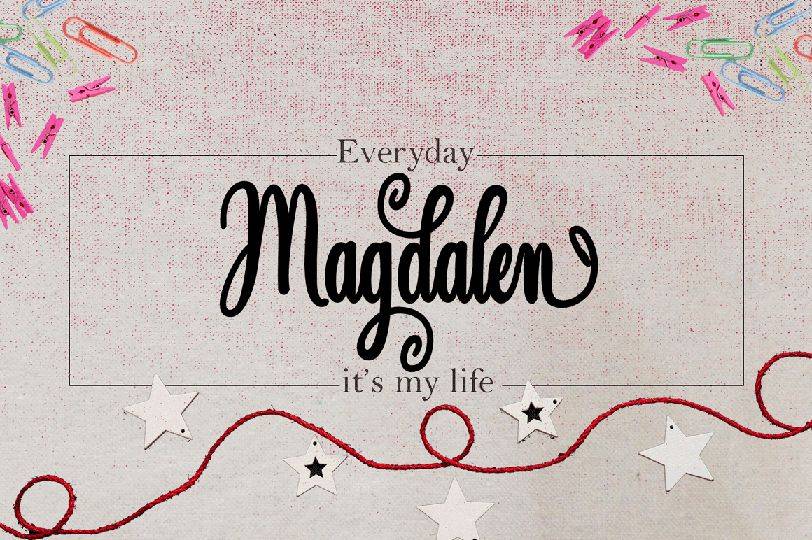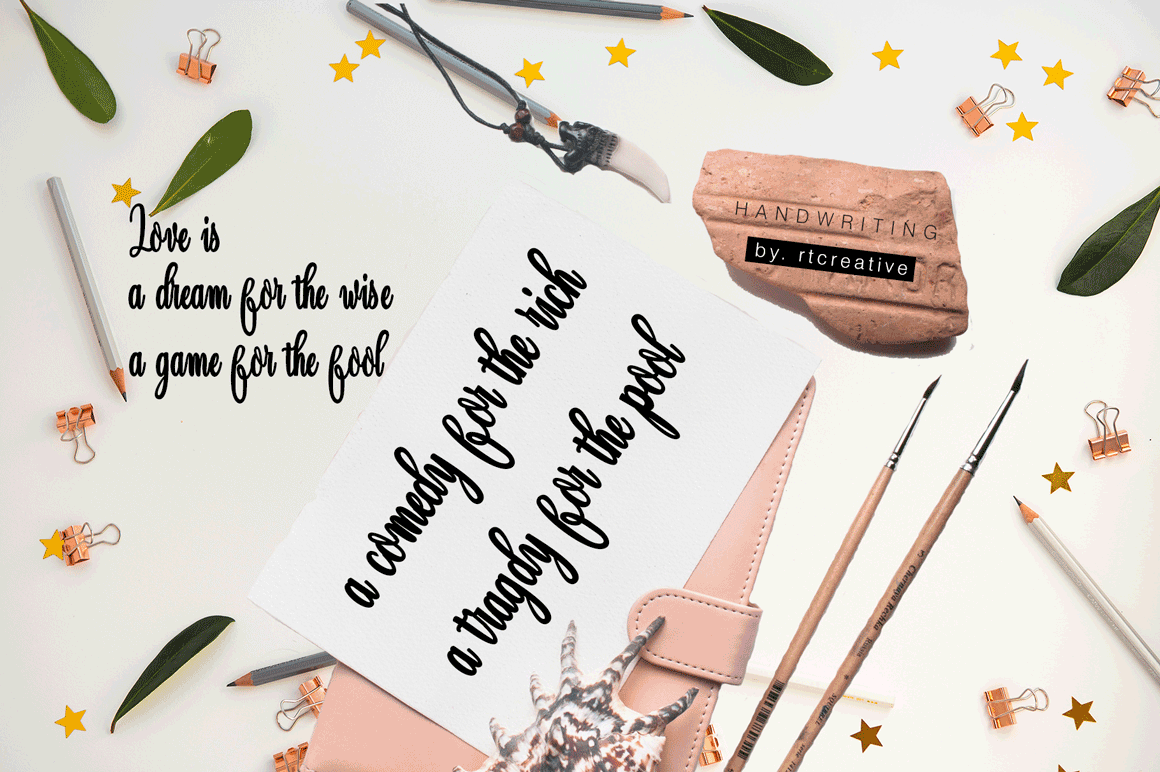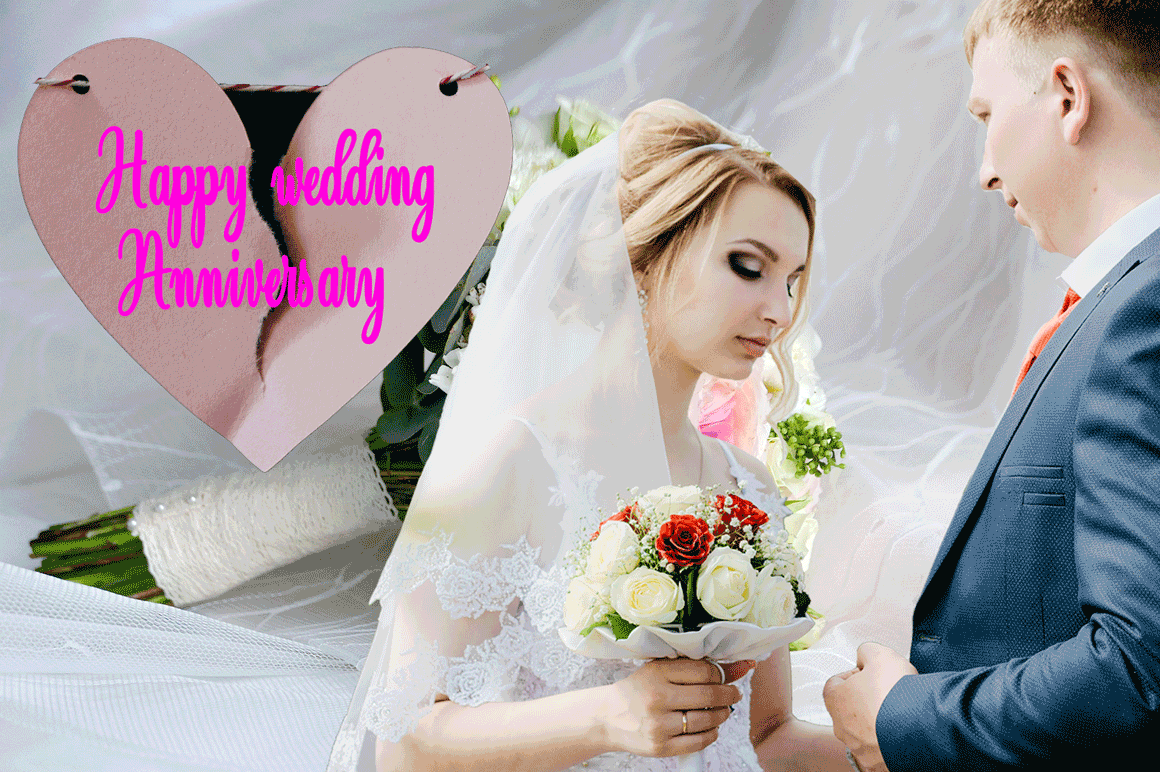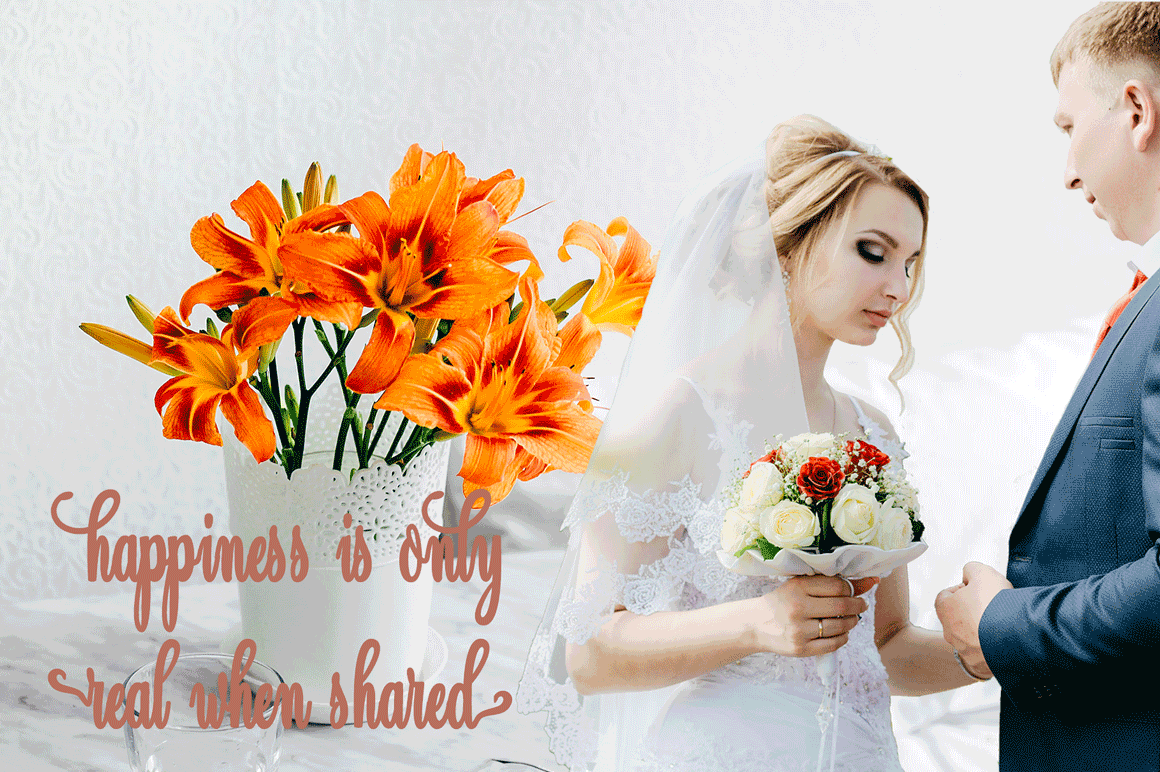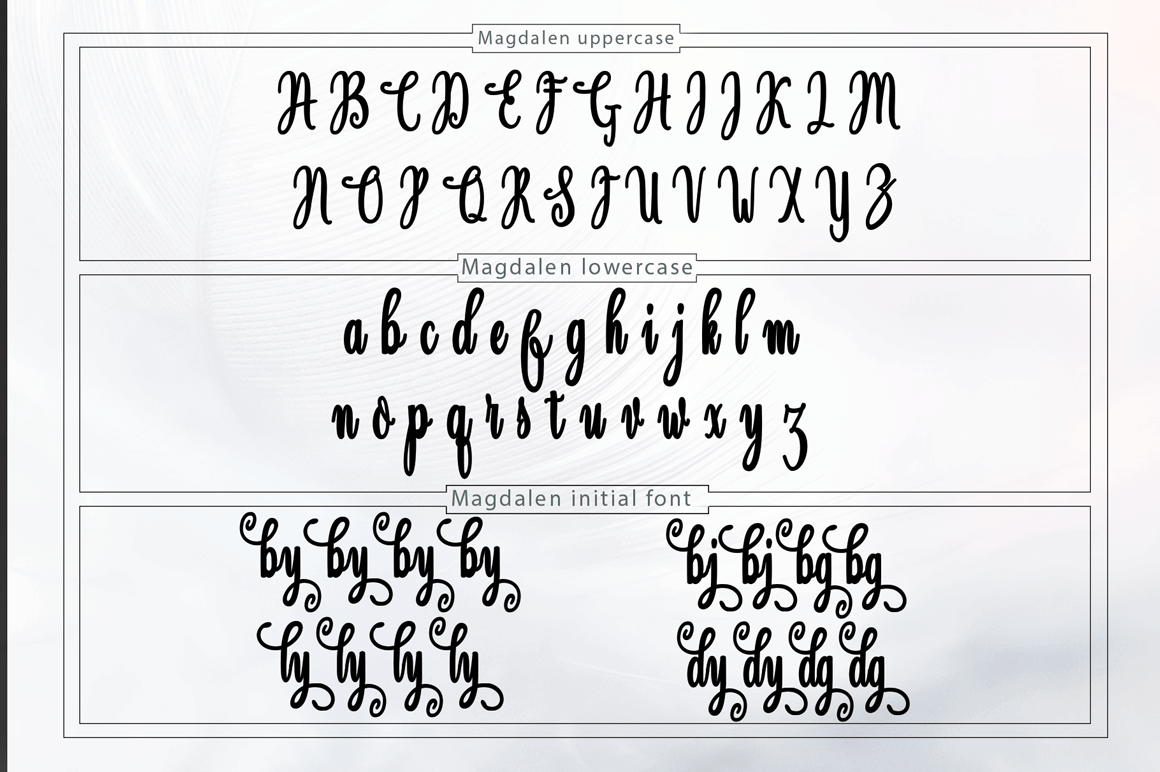
Magdalen Font
Magdalen Font is a work that is purely handwritten, has natural characteristics. It’s perfect for invitations, signatures, blogs, social media, business cards, product brands. Magdalen Font is a simple font that has Stylistic standards, Stylistic Alternatives. and includes uppercase and lowercase letters, numbers, and punctuation. This free typeface was designed by a talented Rahmat Hidayat. If you like it don’t forget to check out the full version.